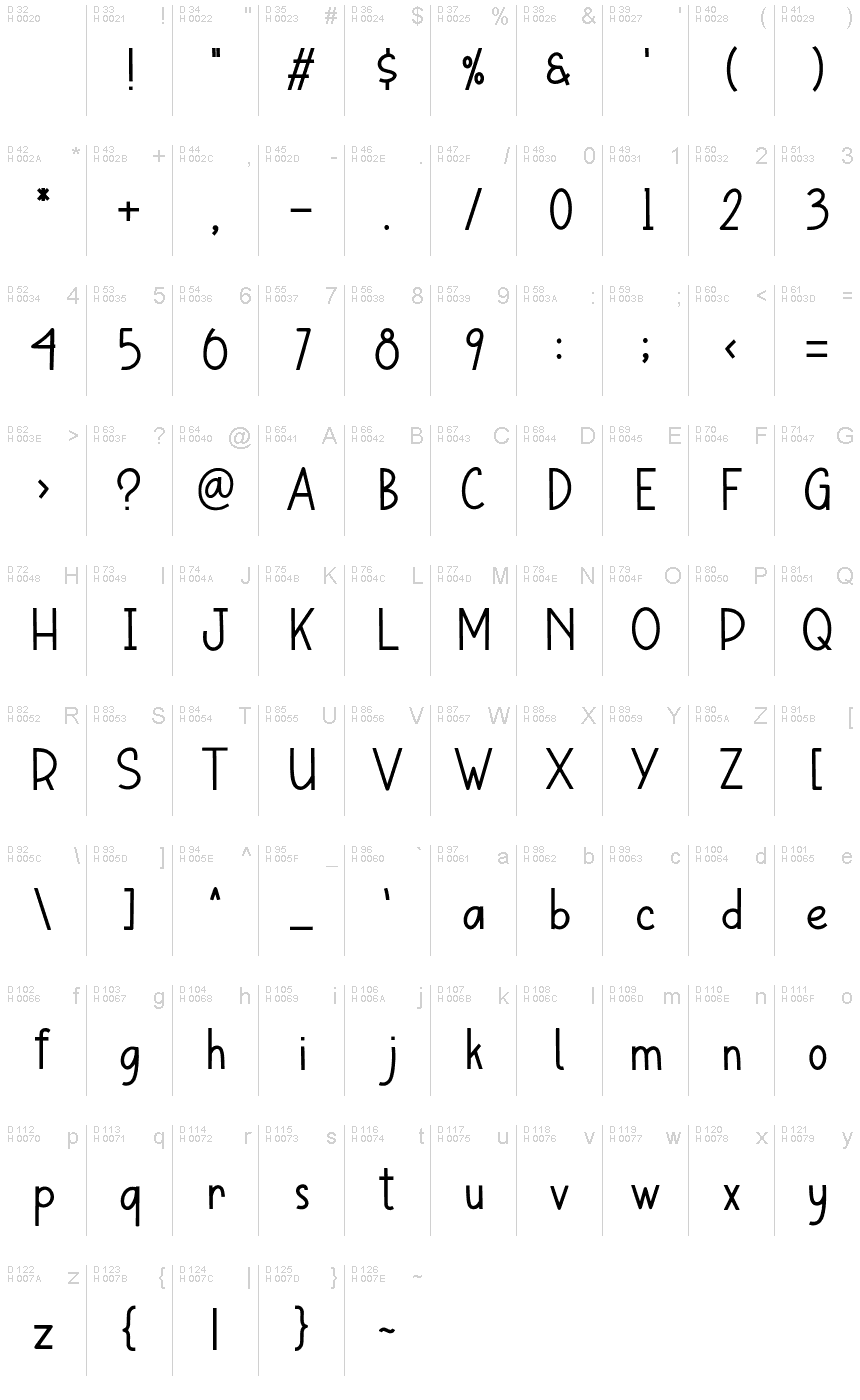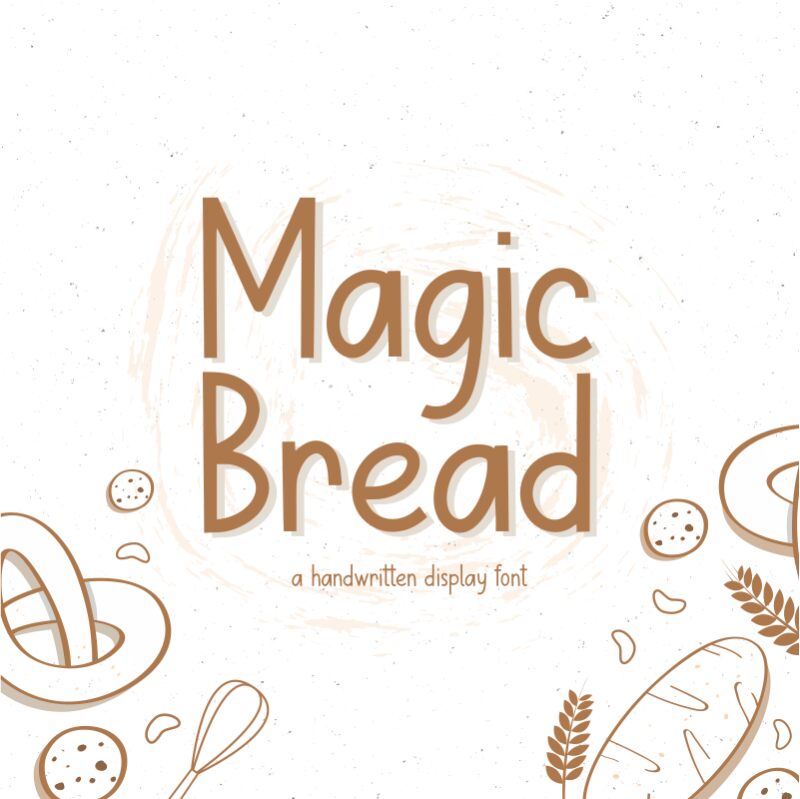
Magic Bread
Looking for a font that will add a touch of whimsy and charm to your project? Look no further than Magic Bread, the latest creation from Qwrtype Foundry. With its lovely handwritten style and semi-light weight, this font is perfect for projects that need a little bit of personality. Whether you're working on a wedding invitation, crafting a logo for a bakery, or designing an eye-catching poster, Magic Bread is sure to make your work stand out from the crowd. Try it out today and see the magic for yourself!